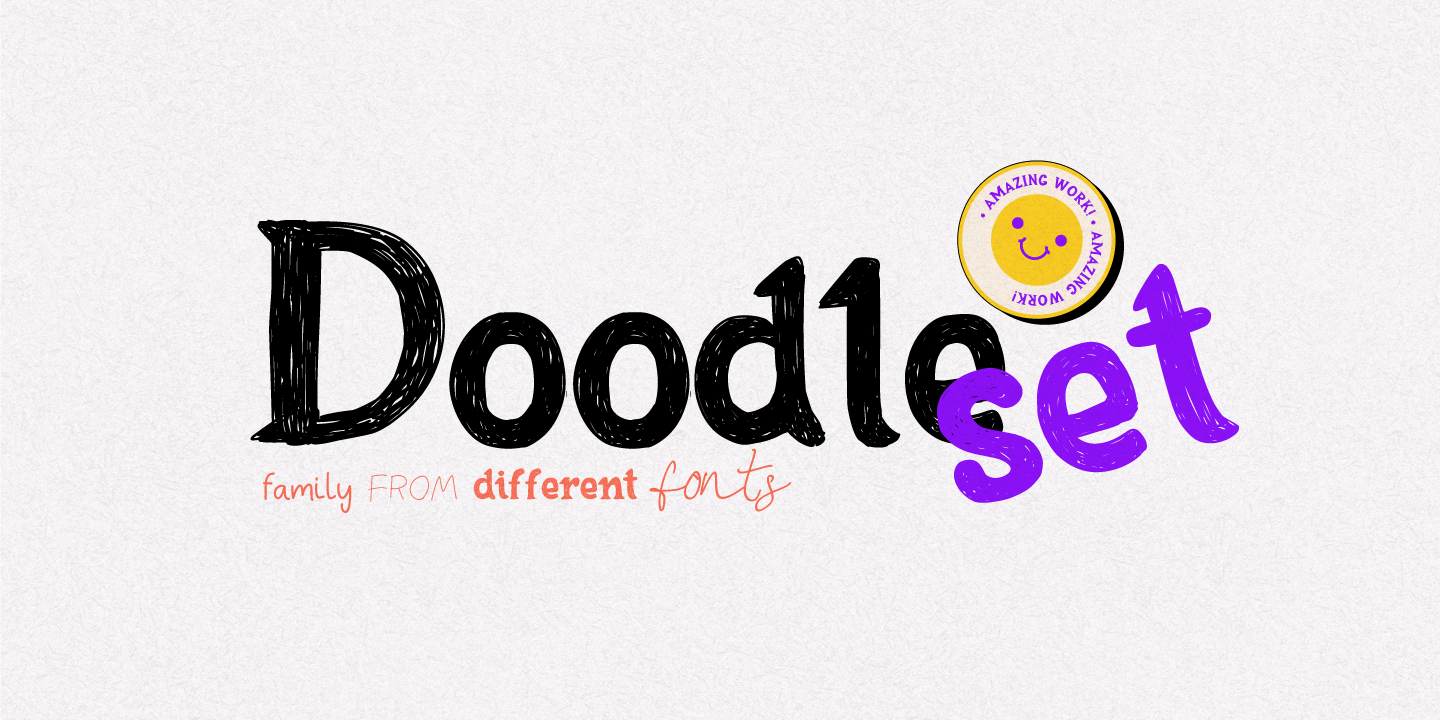
Doodleset Font demonstrates exceptional creativity across playful design applications including children's book illustrations, casual logo design, creative branding projects, fun packaging solutions, playful greeting cards, whimsical social media graphics, craft project materials, educational resources, casual restaurant menus, boutique signage, artistic advertisements, and creative marketing campaigns. This charming typeface brings delightful character to both digital and print projects, making it perfect for brands and designers who need to convey creativity, approachability, and artistic flair in their visual communications.
What makes Doodleset Font Free Download truly exciting is its authentic hand-drawn character that captures the spontaneous energy and creative spirit of genuine artistic expression. The font features uniquely crafted letterforms with playful irregularities, artistic flourishes, and organic variations that mirror real hand-lettering techniques, creating an intimate and personal connection with viewers. Its whimsical aesthetic combines artistic authenticity with excellent readability, making it ideal for projects that require a human touch and creative personality while maintaining functionality across various applications. The font's distinctive charm transforms ordinary content into engaging visual experiences that resonate with audiences seeking authentic and artistic design solutions.
The Doodleset Font family typically includes multiple stylistic variations such as regular, bold, outline, and potentially decorative versions, often featuring alternate characters, artistic elements, and creative flourishes that enhance its hand-drawn authenticity. Each style maintains the core playful design philosophy while offering different levels of visual impact and artistic expression. The comprehensive character set supports various languages and includes essential punctuation marks, numerals, and special symbols, ensuring designers have complete flexibility to create cohesive artistic typographic compositions that maintain visual consistency across diverse creative projects.
Whether you're developing playful brand identity, creating engaging children's materials, or designing artistic marketing communications, Doodleset Font Free Download provides the typographic creativity necessary for producing memorable and charming designs. Its artistic character and versatile nature make it an essential addition to any designer's font collection, offering endless possibilities for creating distinctive and emotionally engaging designs that stand out with personality and creative authenticity in today's design landscape.